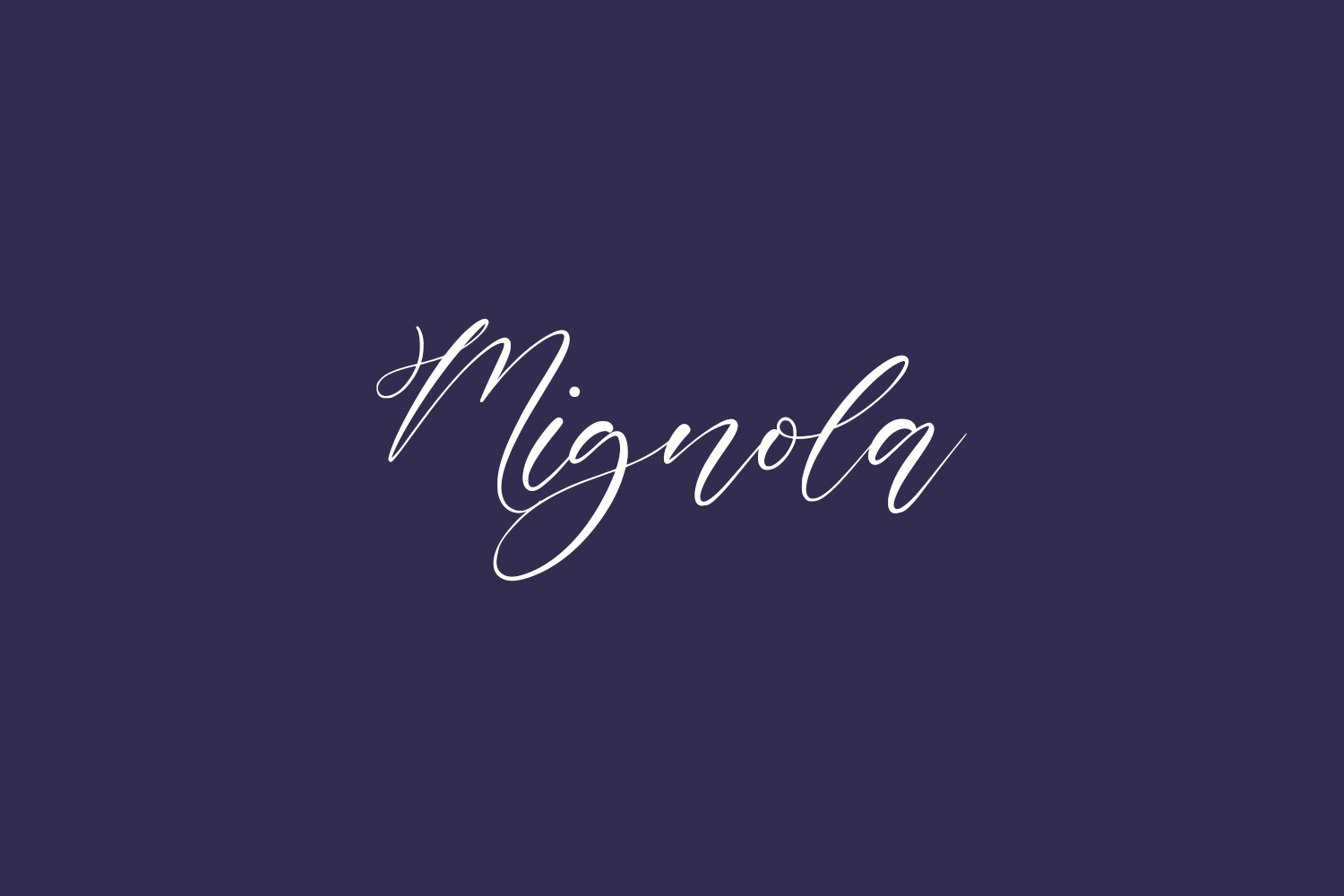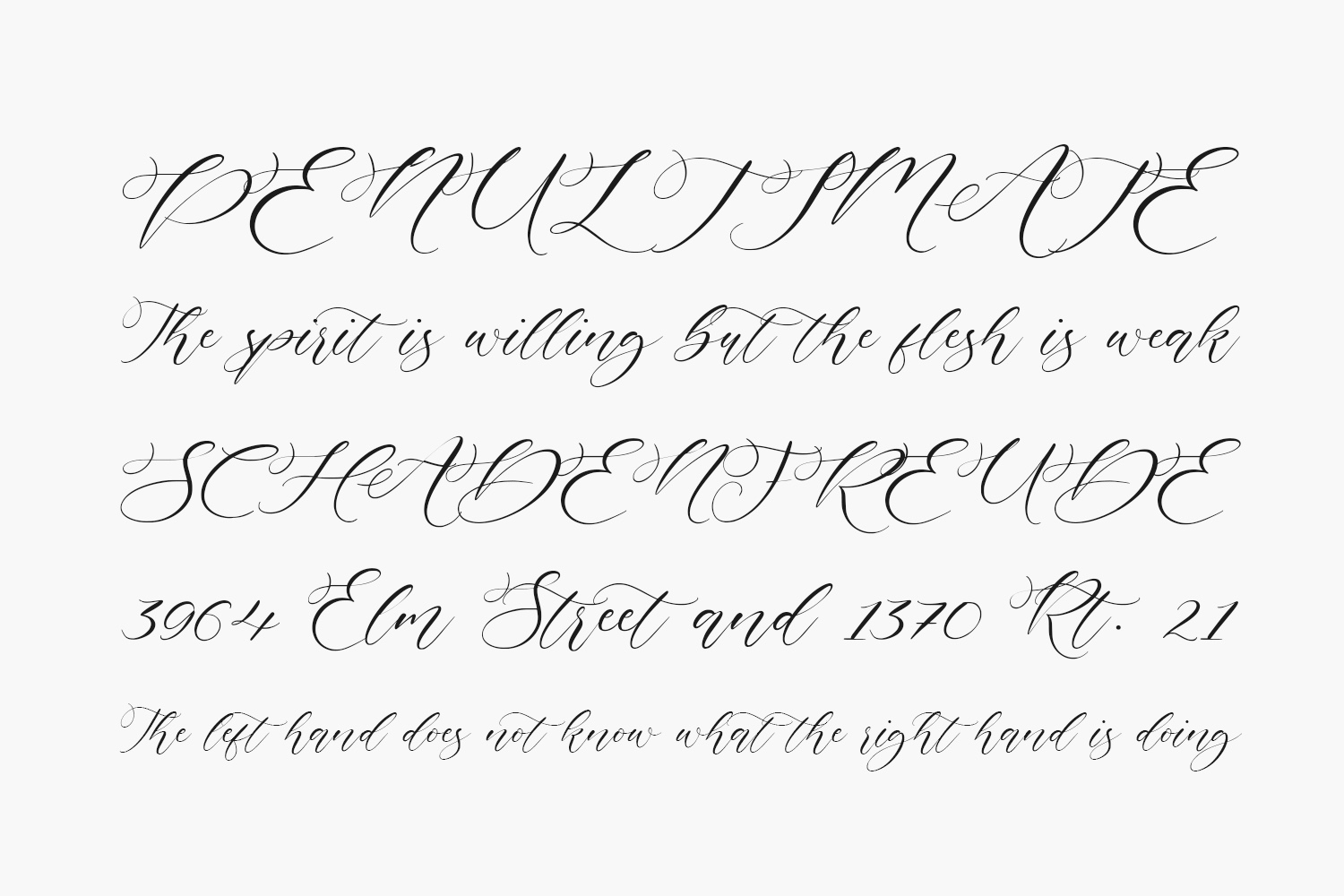
Mignola Free Font is a unique and interesting handwritten font. Incredibly versatile, this font will fit a wide pool of designs. Fall in love with its incredibly stylish look and use it to create spectacular designs. Mignola Free Font was designed by Balpirick Studio and is free for personal use only. Please purchase the full version for commercial use.